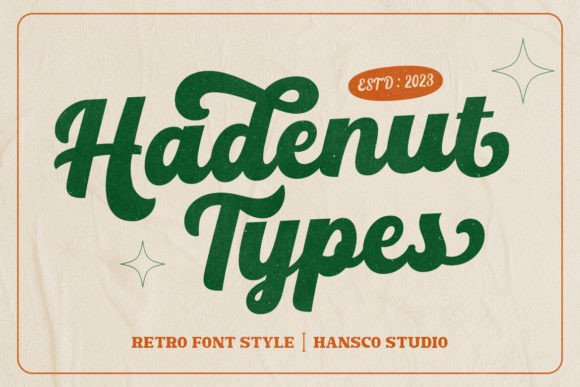
Introducing Hadenut Font, the ultimate choice for all your creative design projects! Crafted by the talented HansCo, this retro vintage font is here to elevate your designs to new heights. With its captivating lettering and unique alternate characters like swashes, Hadenut Font is a must-have for anyone looking to make a statement.
Are you in need of a font that stands out from the crowd? Look no further. Hadenut Font offers a wide range of complete characters, including uppercase and lowercase letters, numbers, punctuation marks, and even multi-lingual support. Whatever language or project you're working on, this font has got you covered.
Let your imagination run wild with Hadenut Font. Its versatility makes it perfect for various design purposes. Whether you're creating a stunning logotype, eye-catching stickers, or captivating packaging design, this font will effortlessly enhance your creations.
Calling all Cricut enthusiasts! Hadenut Font is your go-to choice for all your Cricut projects. Its stylish and intricate lettering will add a touch of elegance to your creations. Let your designs speak volumes and leave a lasting impression on your audience.
Looking to make a bold statement? Hadenut Font is the answer. Its retro charm and modern appeal make it ideal for headlines, brand identity, and apparel industry designs. Stand out from the crowd and establish a unique visual identity for your brand.
But why stop there? Hadenut Font is perfect for any medium. From posters to magazines, books to YouTube videos, Instagram posts to websites, this font will bring your creative visions to life. Whether you're a professional designer or a DIY enthusiast, Hadenut Font is your secret weapon for stunning designs.
Don't miss out on this opportunity to take your designs to the next level. Add a touch of modern retro elegance to any idea with Hadenut Font. Get ready to captivate your audience and leave a lasting impression with this remarkable font.